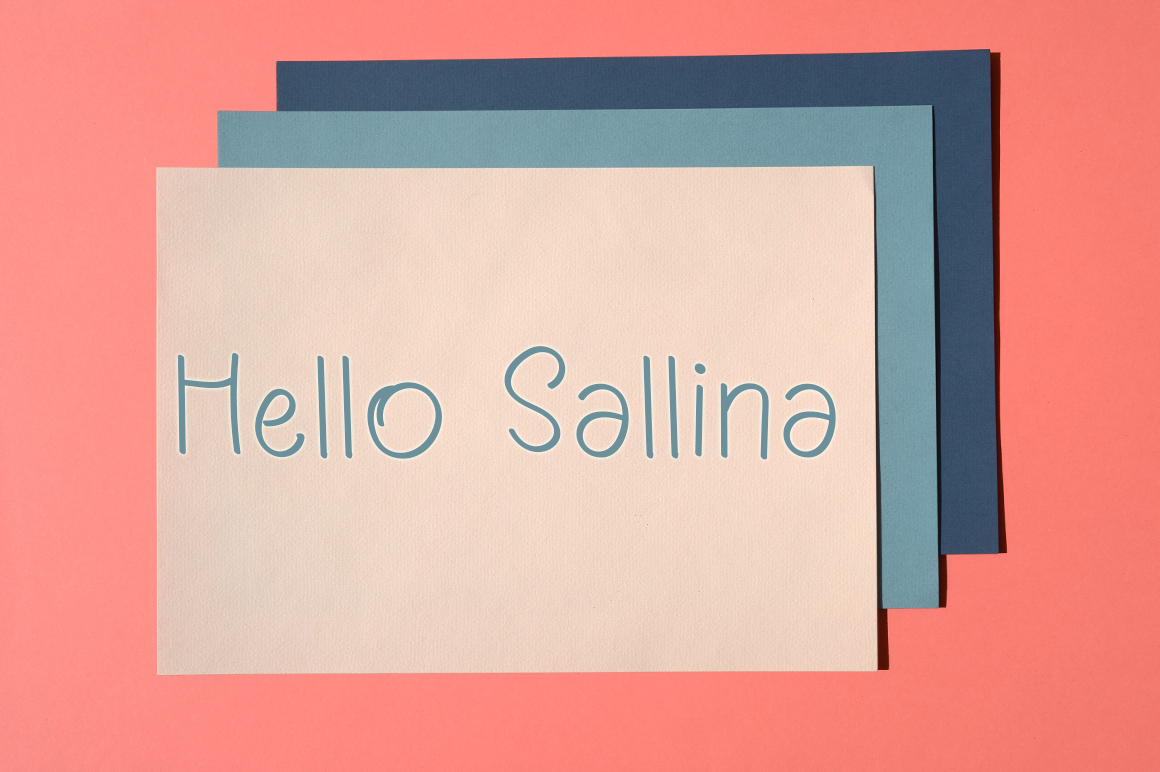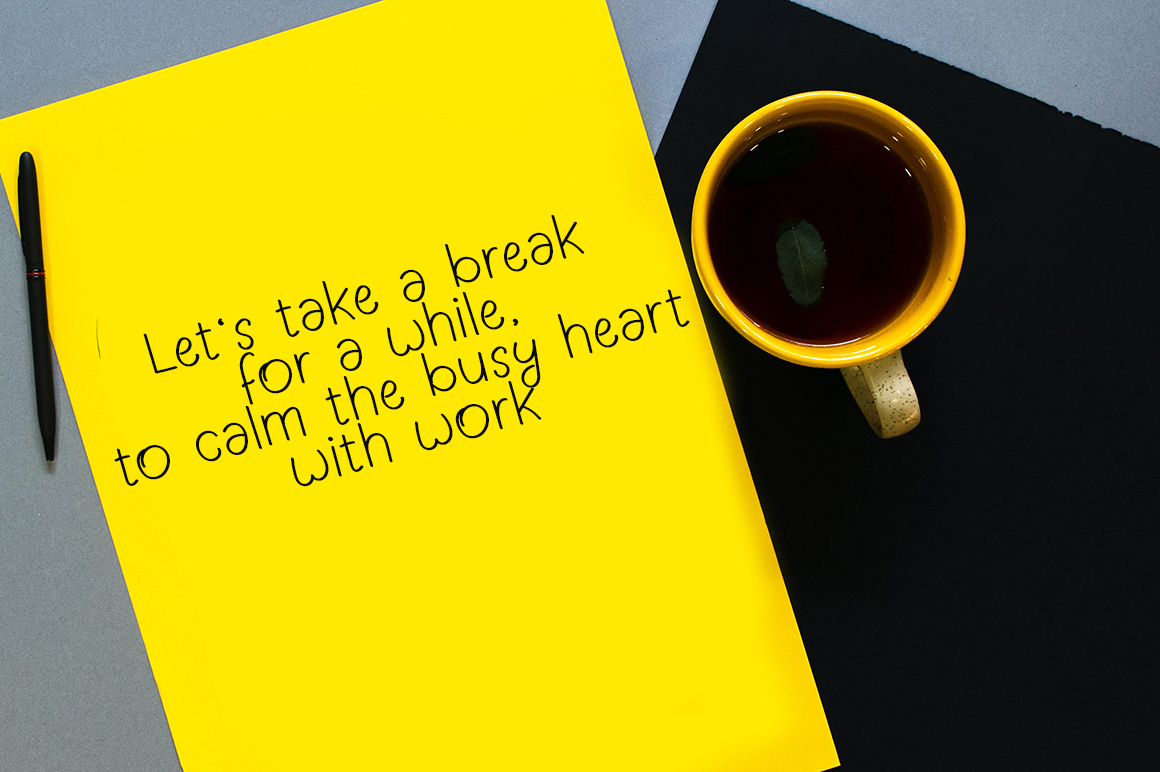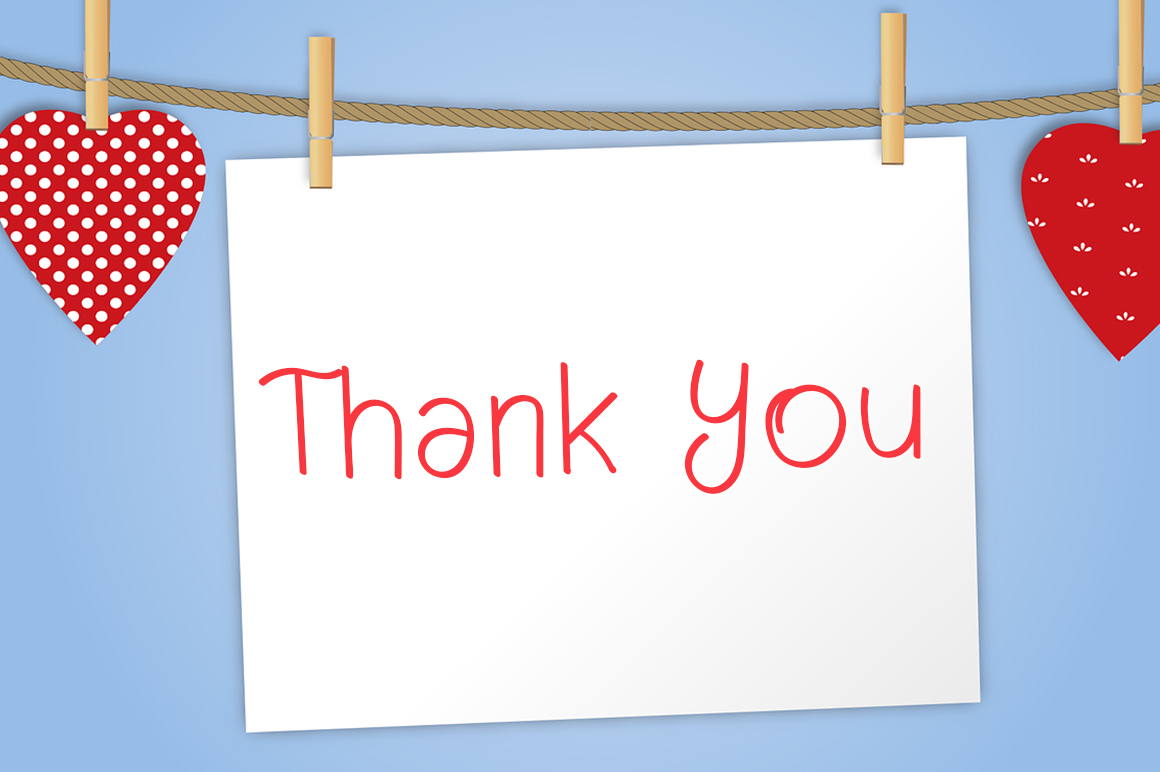
Something Handwritten Font
It’s a clean and adaptable handwritten font. Whether you’re looking for fonts for Instagram or calligraphy scripts for DIY projects, this font will turn any creative idea into a true piece of art!